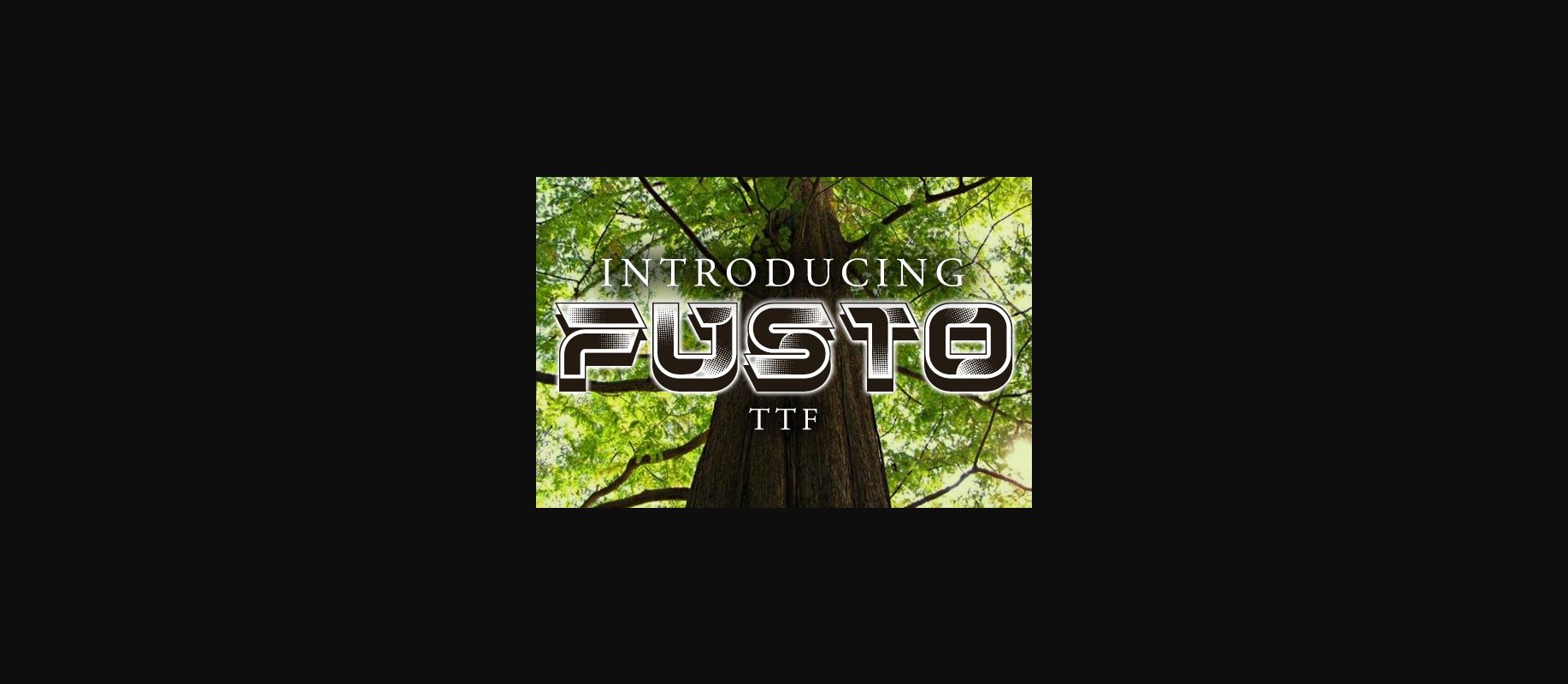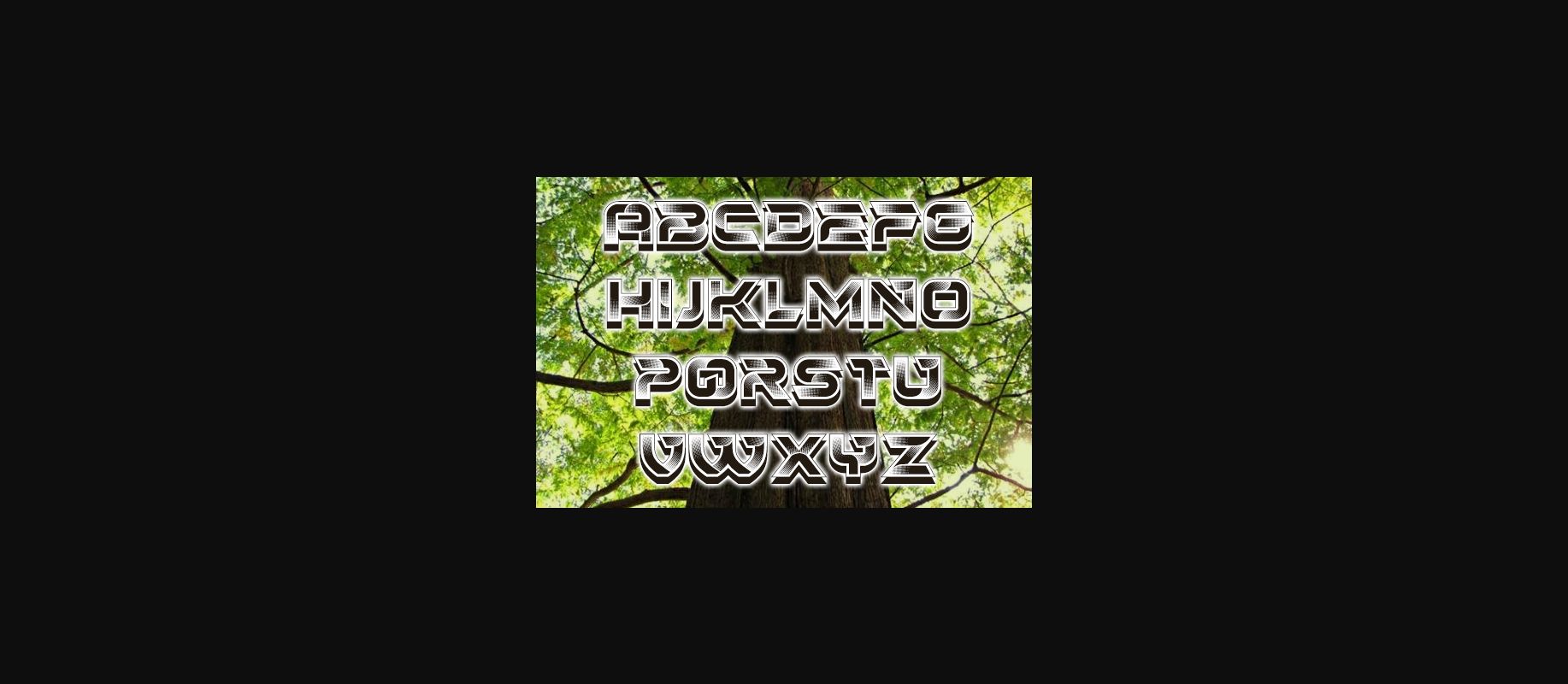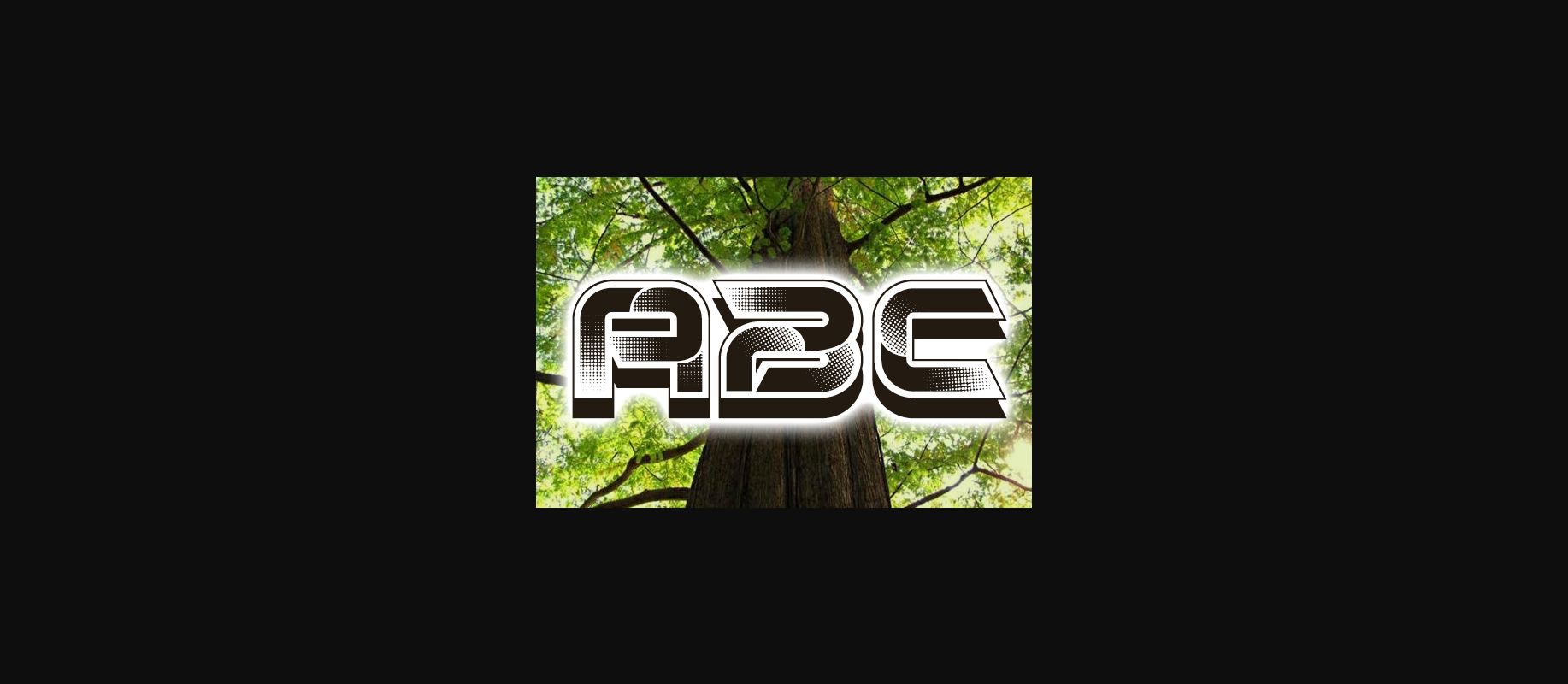
About Fusto Font
Fusto is an awesome 3D Retro style decorative font that will give your designs a unique touch! Add it to your most creative ideas and notice how it makes them come alive!